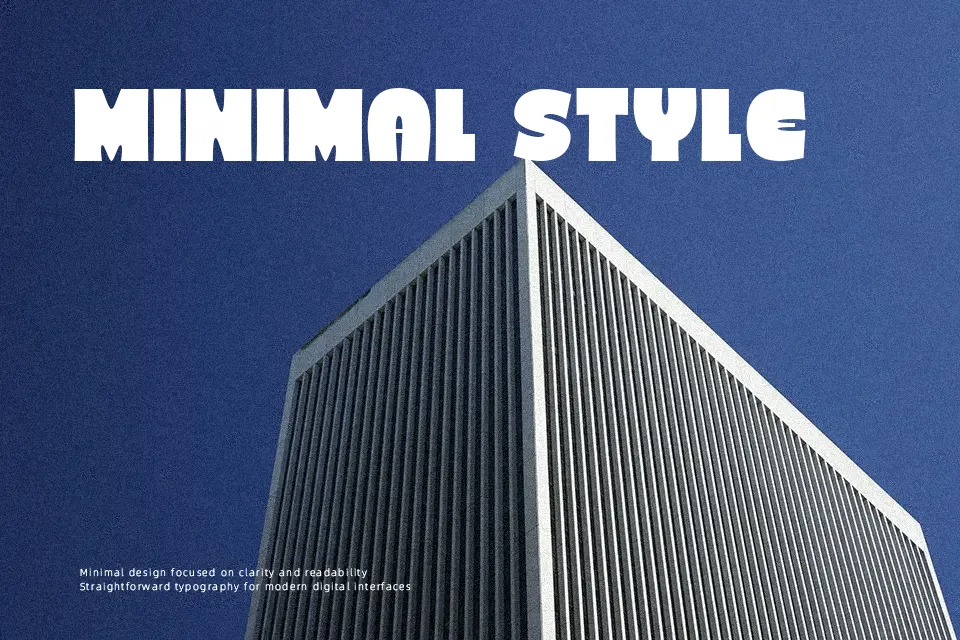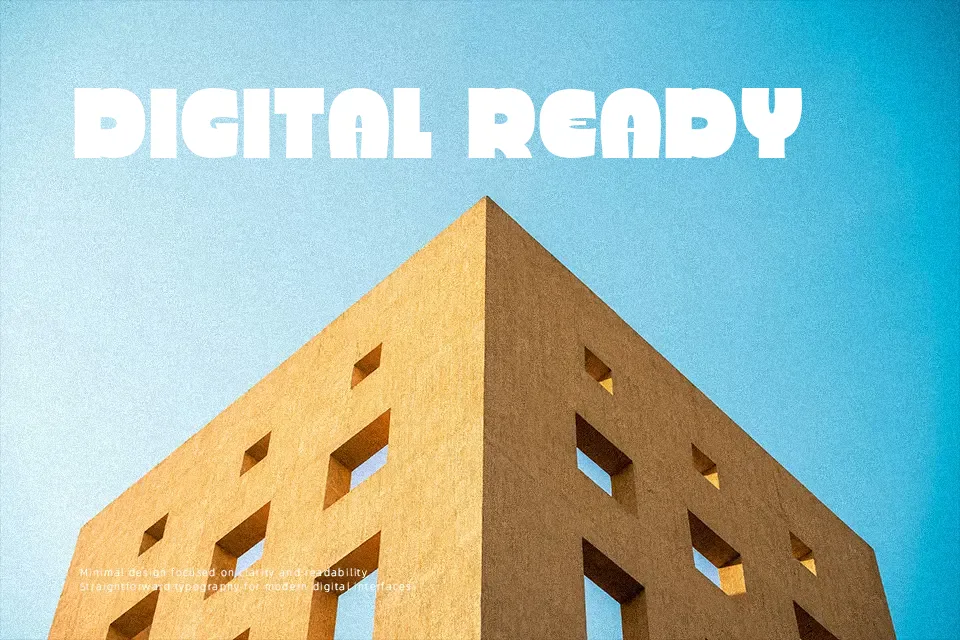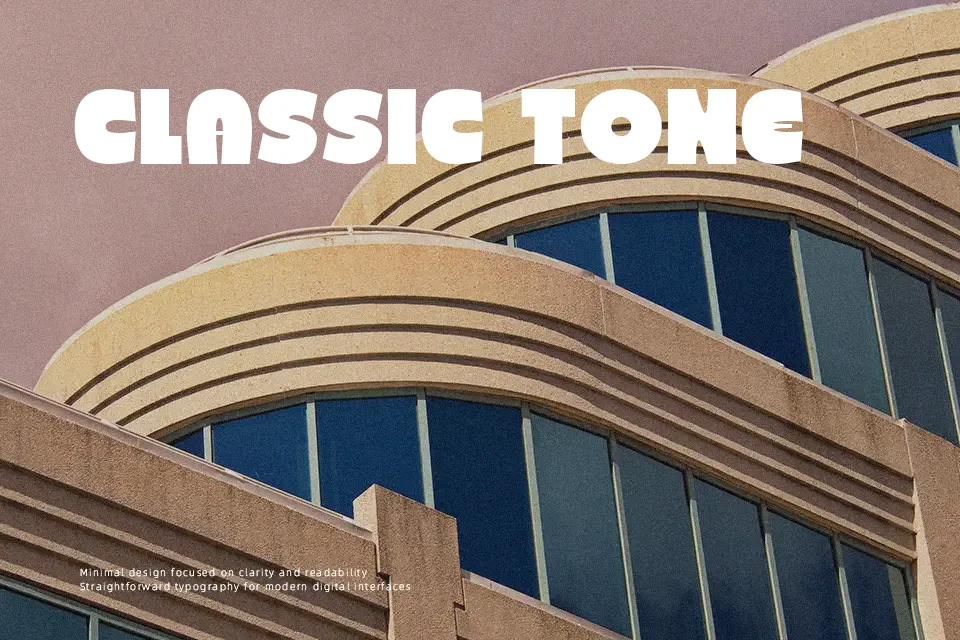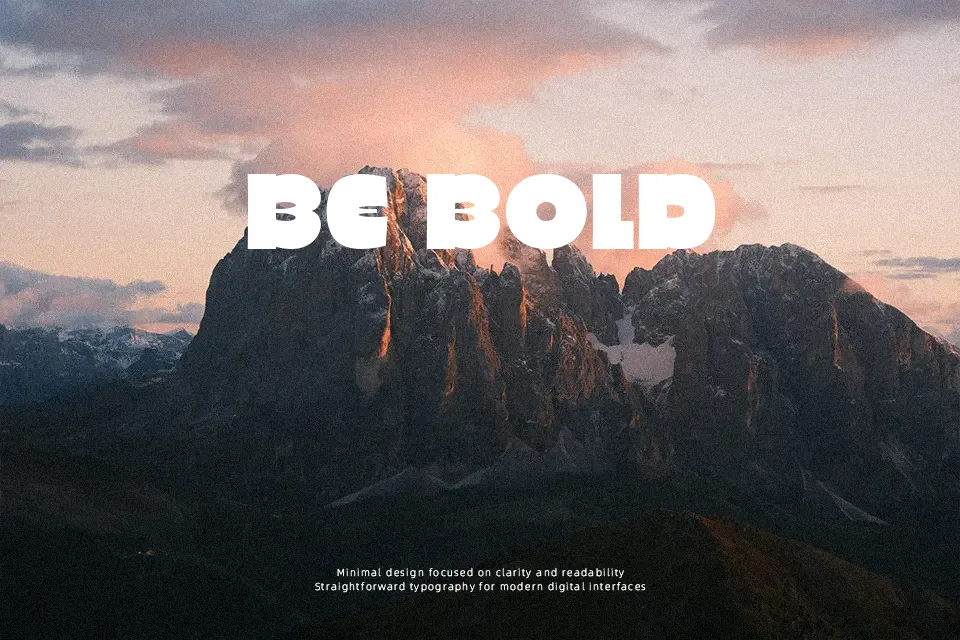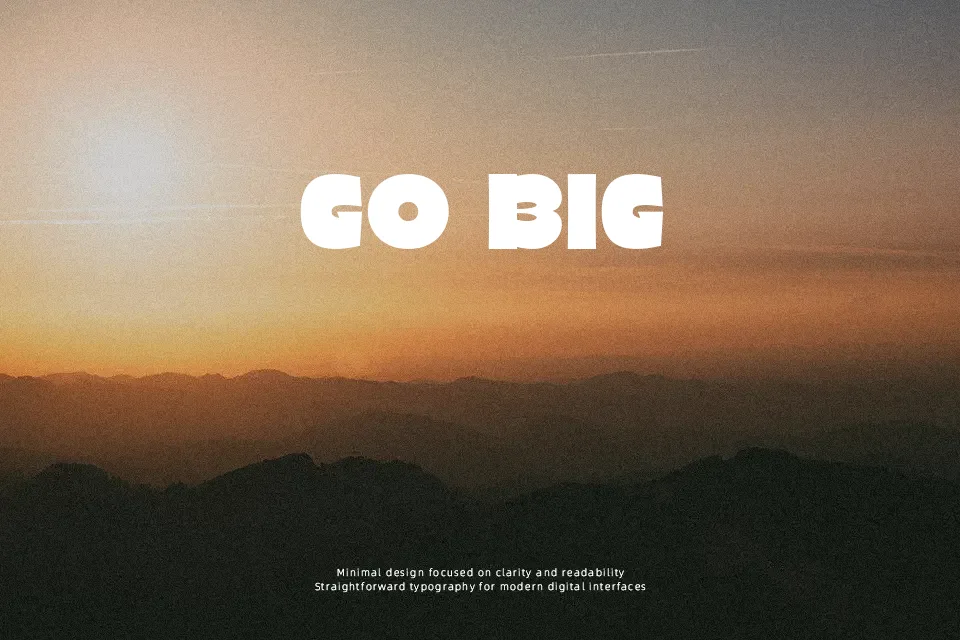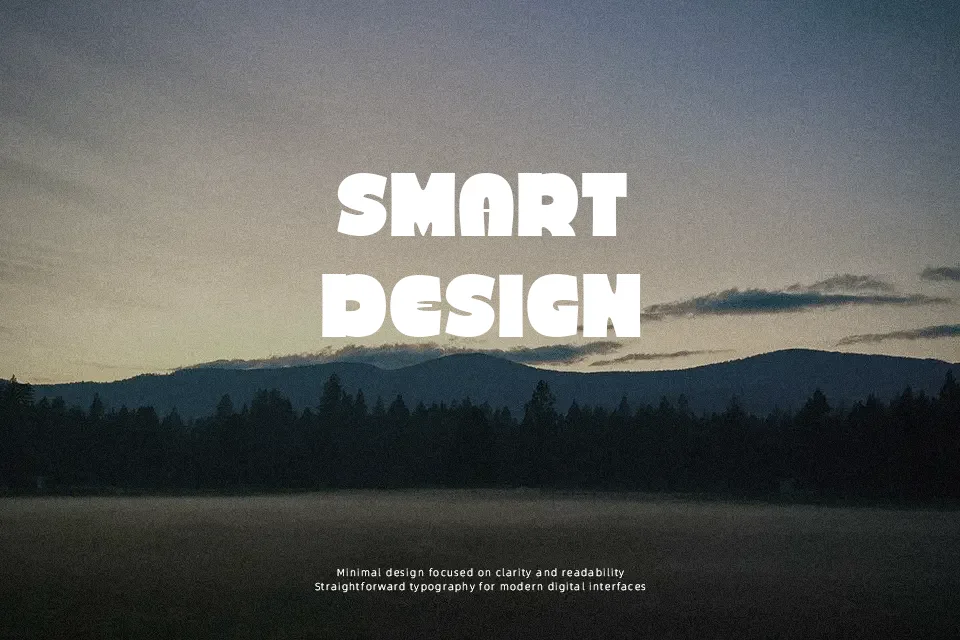
Bold Groove Font
Designed by Wasabib Studio
Bold Groove Font presents a commanding visual presence through its ultra-heavy strokes, tightly constructed letterforms, and subtly rounded edges. This geometric display typeface balances a distinct retro influence with a highly legible, clean modern aesthetic. The thick, semi-expanded structure gives it an assertive yet approachable demeanor, making it an excellent asset for large-scale applications like street apparel branding, vibrant music festival posters, and prominent packaging typography. It excels when you need a focal point that demands immediate attention. However, its massive weight and minimal negative space mean it struggles significantly in smaller formats or dense paragraph layouts, where readability will quickly diminish. Compared to more traditional chunky sans-serifs, it feels noticeably smoother and more dynamic.
– High-impact streetwear branding and apparel design
– Eye-catching festival posters or event flyers
– Bold packaging designs requiring prominent typography
– Long-form editorial content and dense body text
– Corporate documents that require a conservative tone
– Small user interface elements or mobile app menus